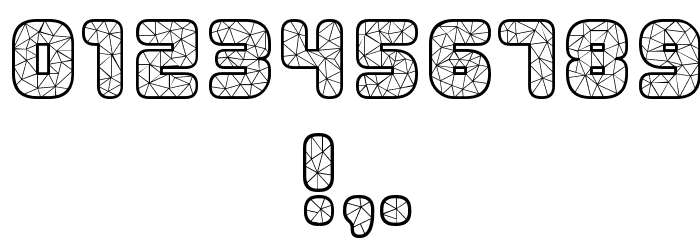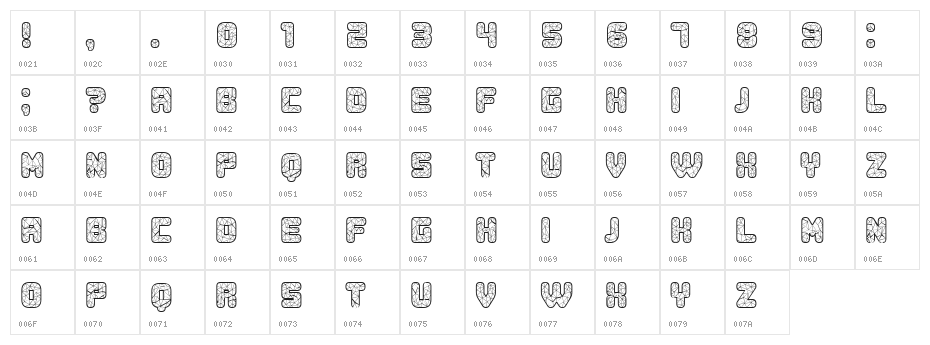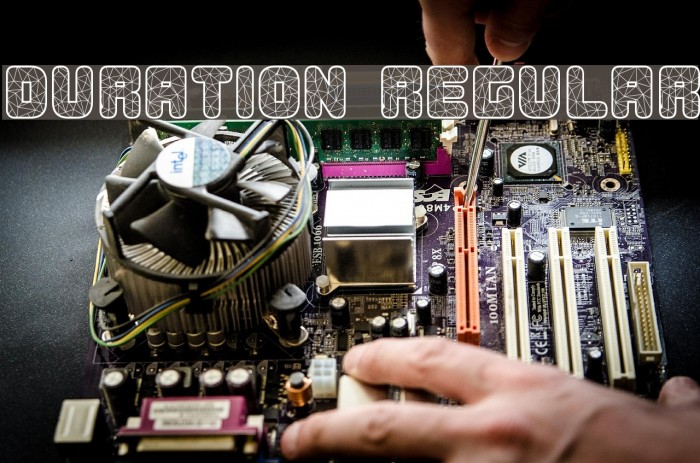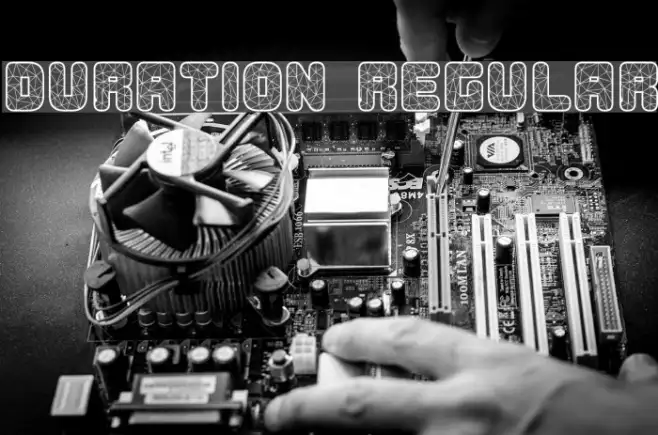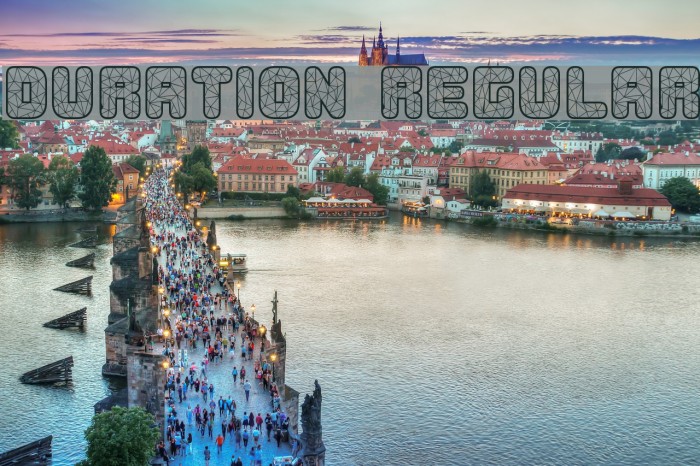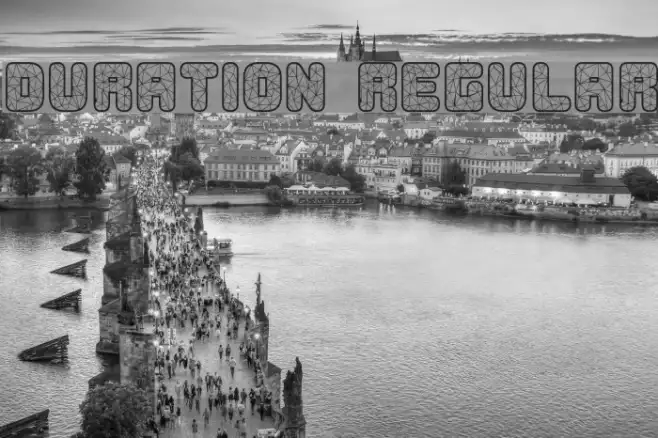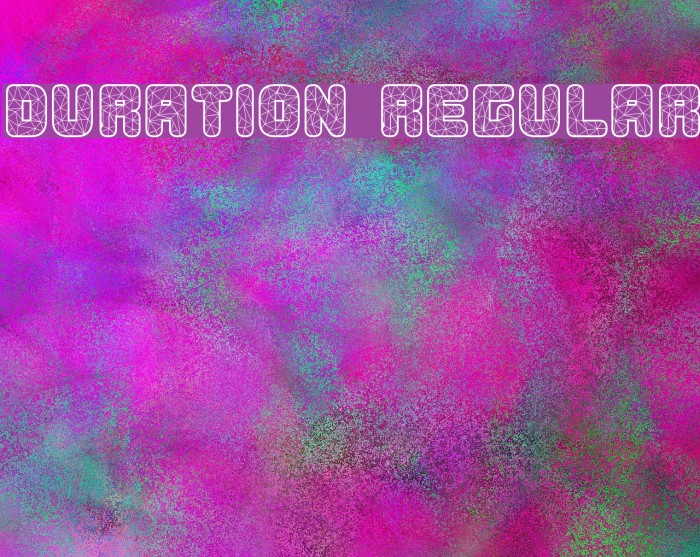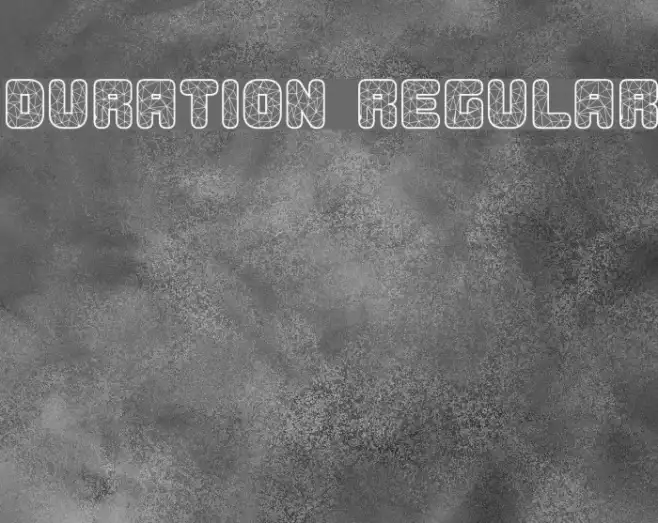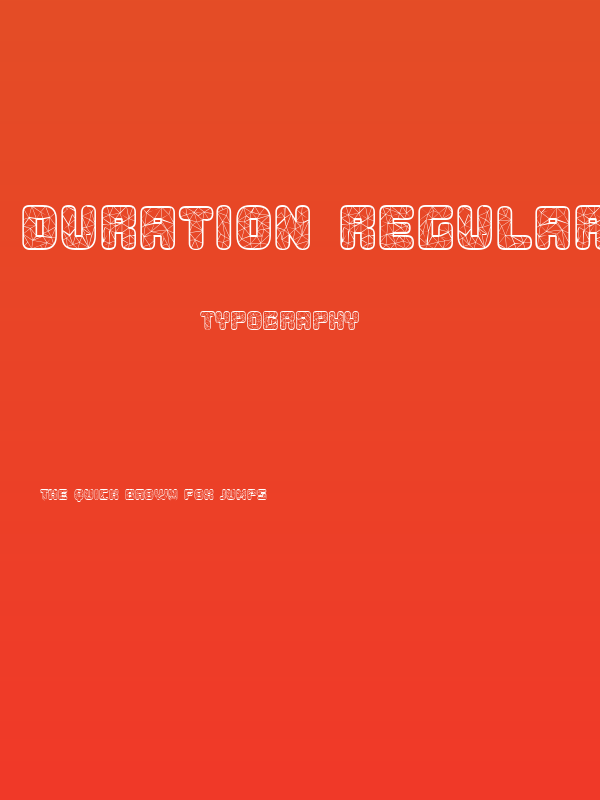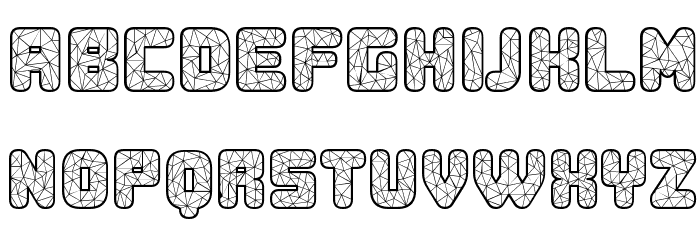
Duration Regular Font
Duration Regular Description
This font features a unique geometric design with a wireframe-like appearance. Each character is composed of interconnected lines forming triangular patterns, giving it a three-dimensional and futuristic look. The bold outlines enhance the visibility of the intricate internal structure, making it stand out. The font maintains a consistent thickness throughout, providing a uniform and cohesive appearance. It is both decorative and modern, suitable for projects that require a distinctive and eye-catching typeface. The characters are evenly spaced, ensuring readability while maintaining its artistic flair.
| Proposed Projects | Ideal for futuristic designs, tech-related branding, posters, and digital art projects. |